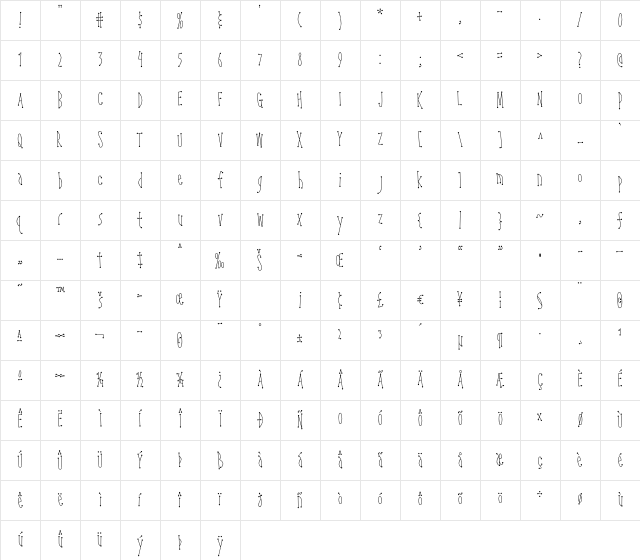
JokerWildAOE Regular Free Font
JokerWildAOE Regular
Design Context for JokerWildAOE
JokerWildAOE is a composed and adaptable typeface that performs quietly and consistently across a wide range of design contexts.
Pro Tip: Use JokerWildAOE in both headline and body roles to test its range before committing to a single application.